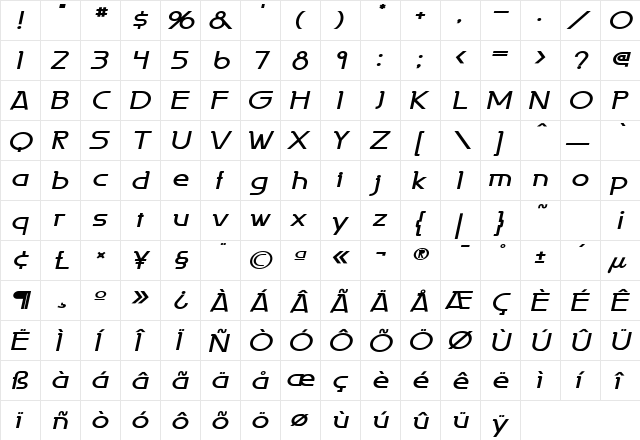
Persia Wide Bold Italic Font Preview
Design Context for Persia Wide Typeface
Persia Wide offers clean, dependable letterforms without strong stylistic allegiance, making it a practical choice for designers who need flexibility. The dynamic lean of this cut emphasises speed and emphasis in any layout. The heavy weight commands attention and anchors typographic hierarchies.
Pro Tip: Try Persia Wide for annotation and caption copy alongside an upright companion — the contrast in angle creates a dynamic but ordered typographic system.